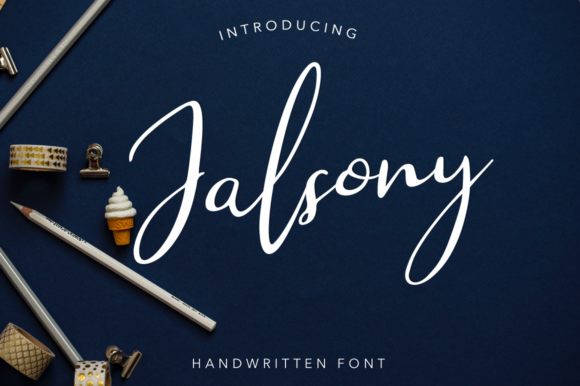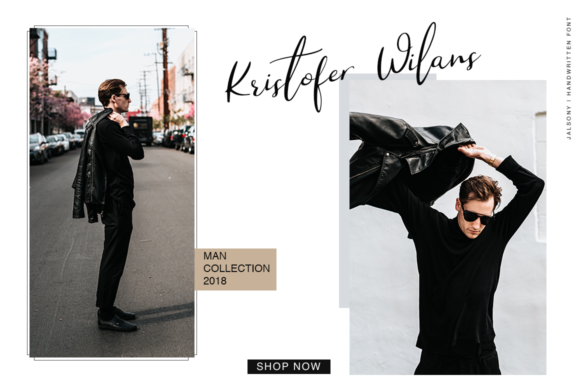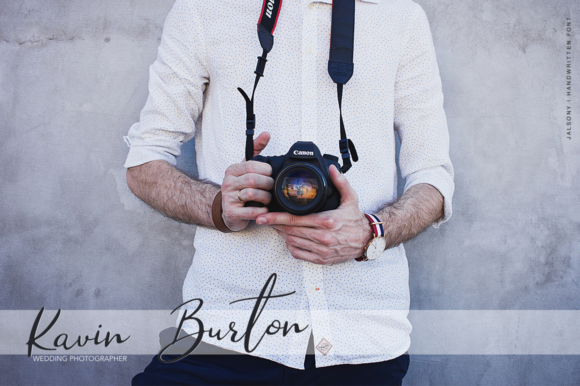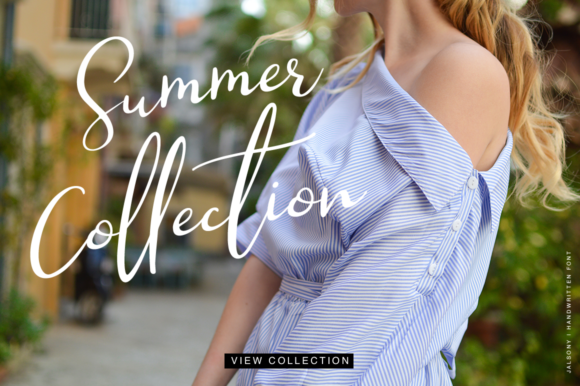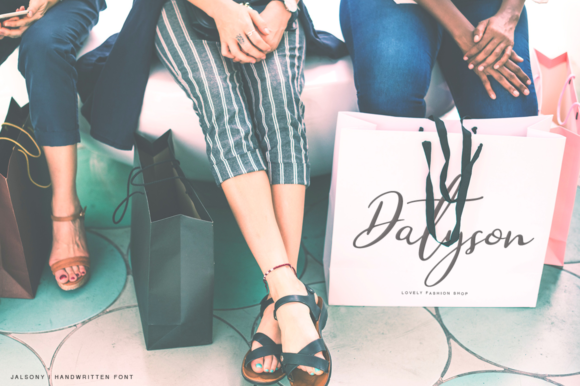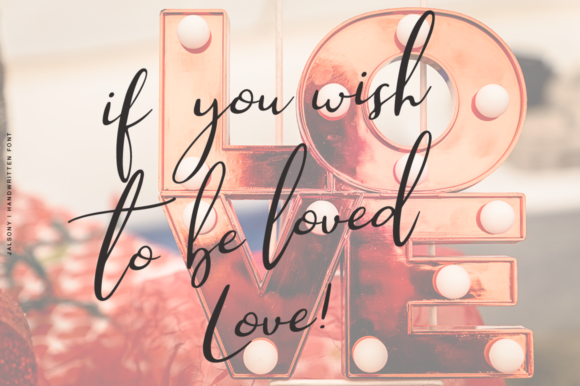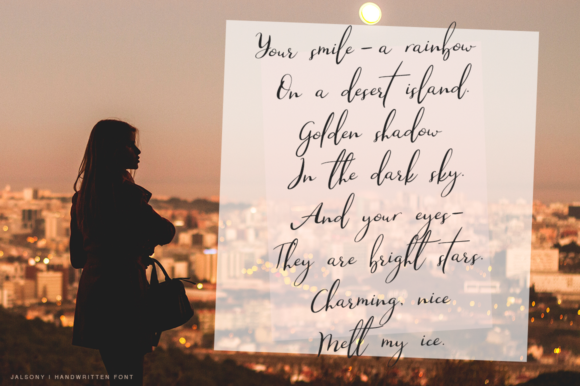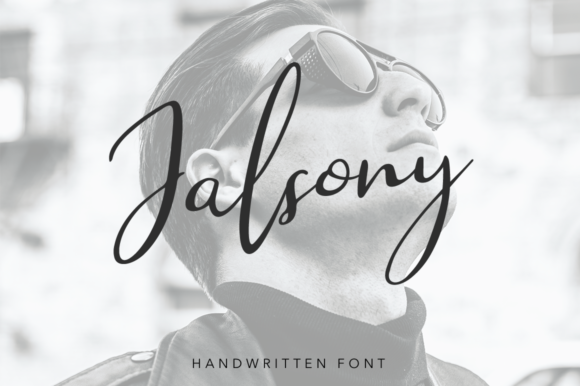
Jalsony Font
About Jalsony Font
Jalsony is a fresh, handmade calligraphy font that can add tons of charm and style to your projects. This font has a variable baseline, and works for a wide range of themes.